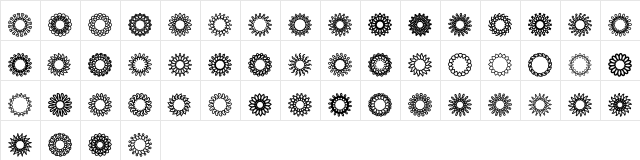
SC Bulbous 1 Regular
Design Context for SC Bulbous 1 Typeface
SC Bulbous 1 is a composed and adaptable typeface that performs quietly and consistently across a wide range of design contexts.